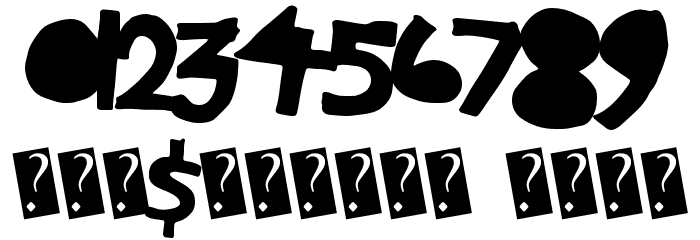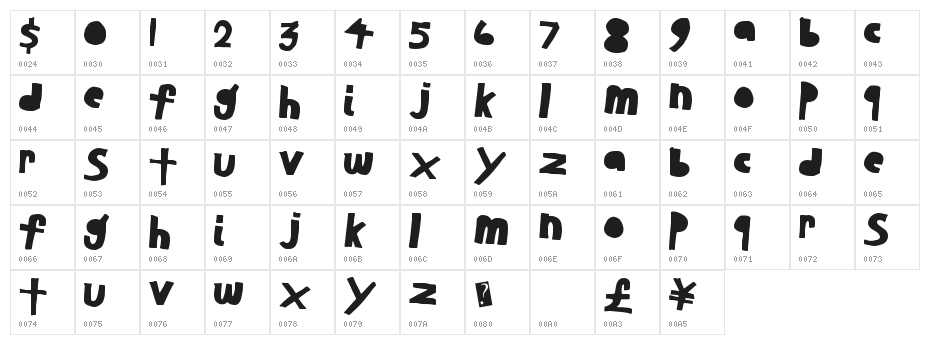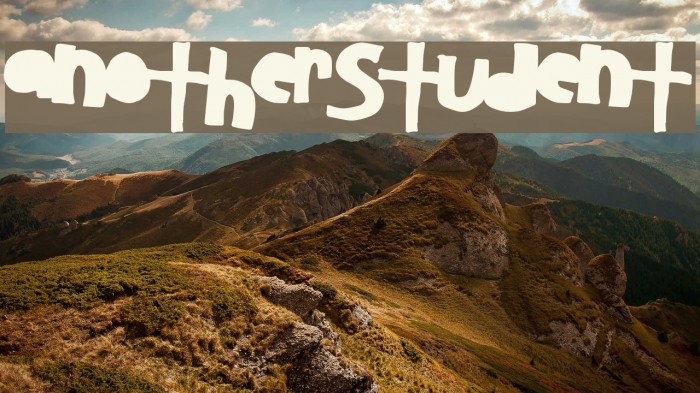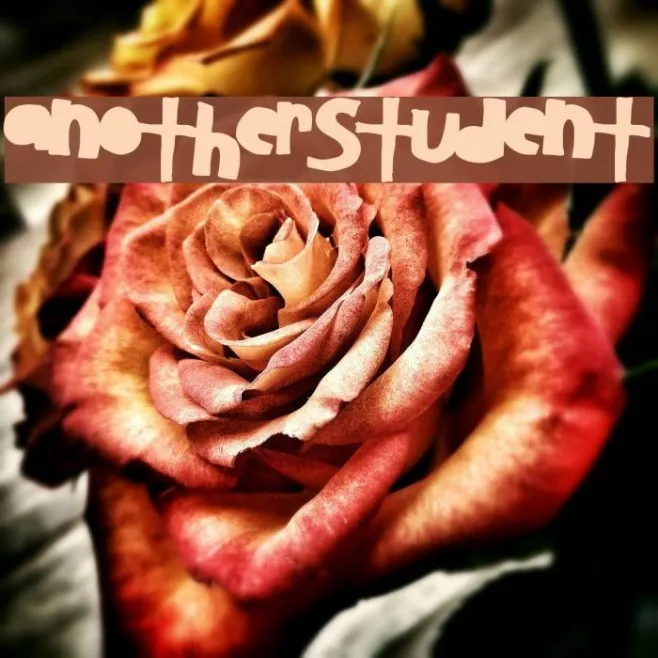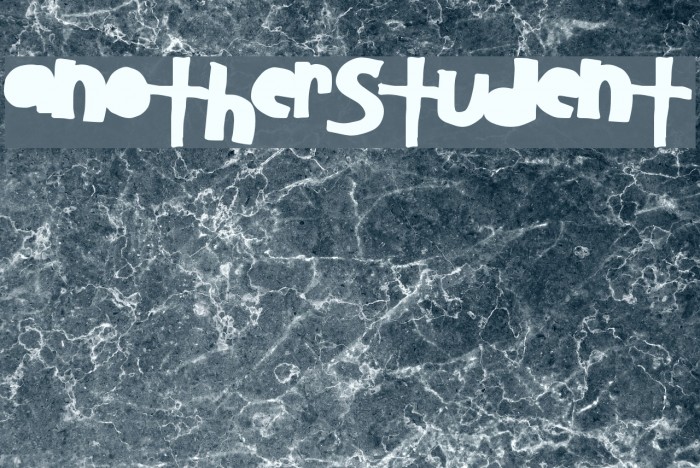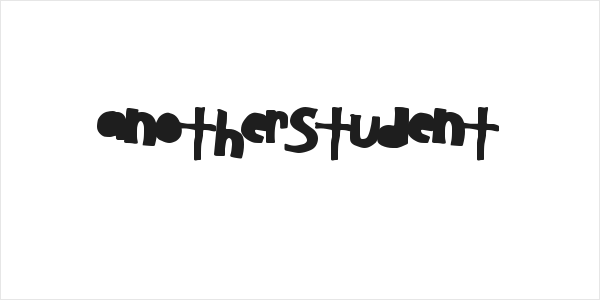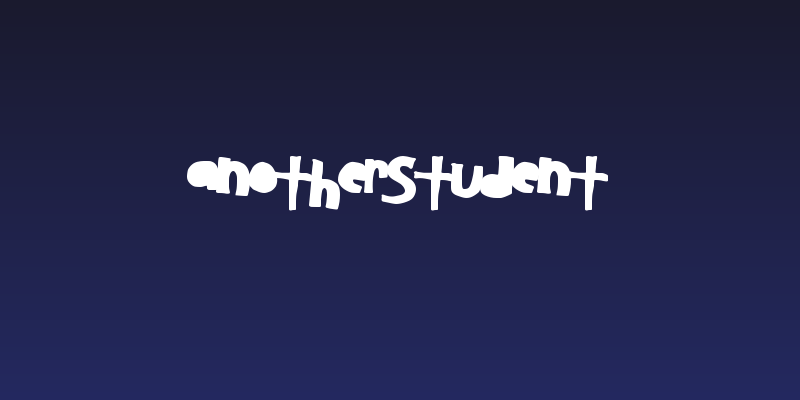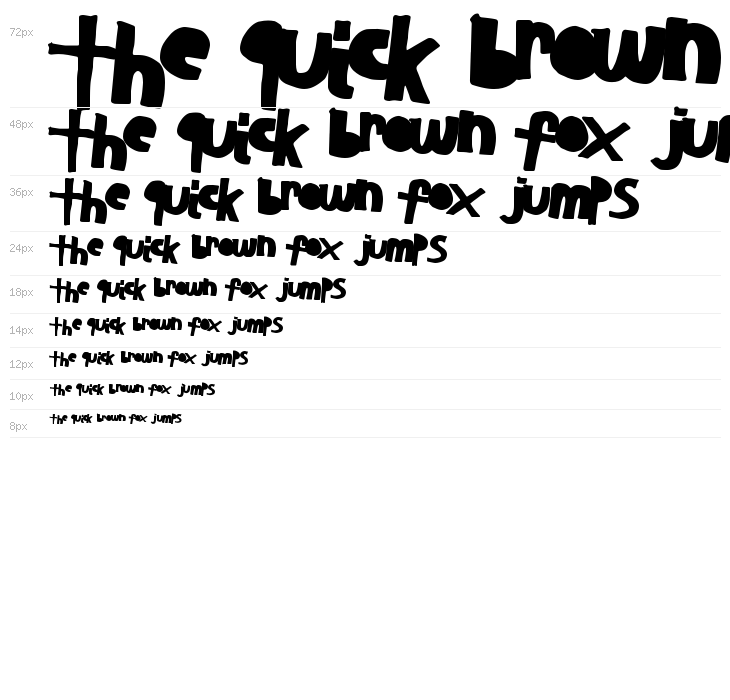
AnotherStudent Font
AnotherStudent Description
This font features a bold and playful style with a hand-drawn appearance. The characters are thick and rounded, giving them a friendly and approachable look. The letters have a slightly irregular shape, adding to the casual and informal feel. This font is highly decorative, with a unique charm that makes it stand out. The numbers and special characters maintain the same playful aesthetic, ensuring consistency across all glyphs. The overall design is eye-catching and suitable for projects that require a fun and lively touch.